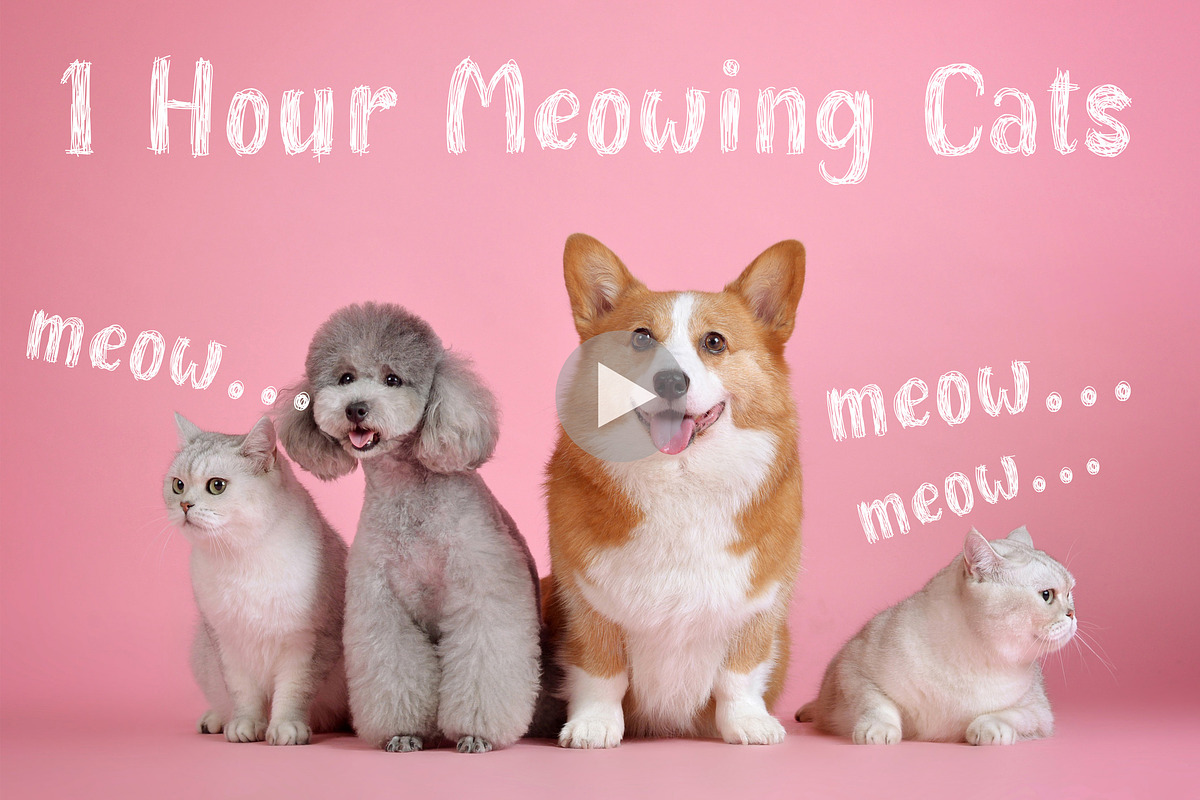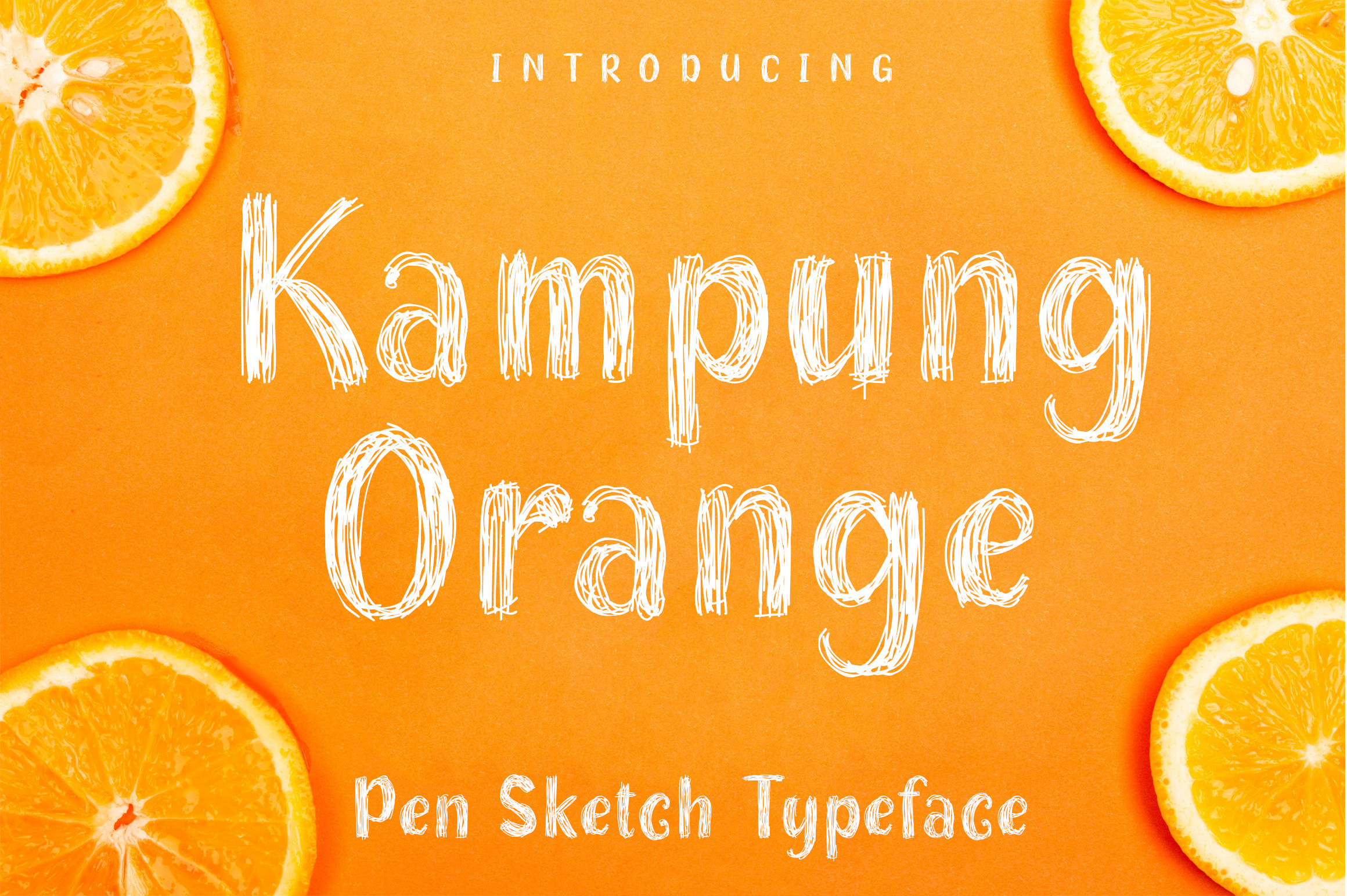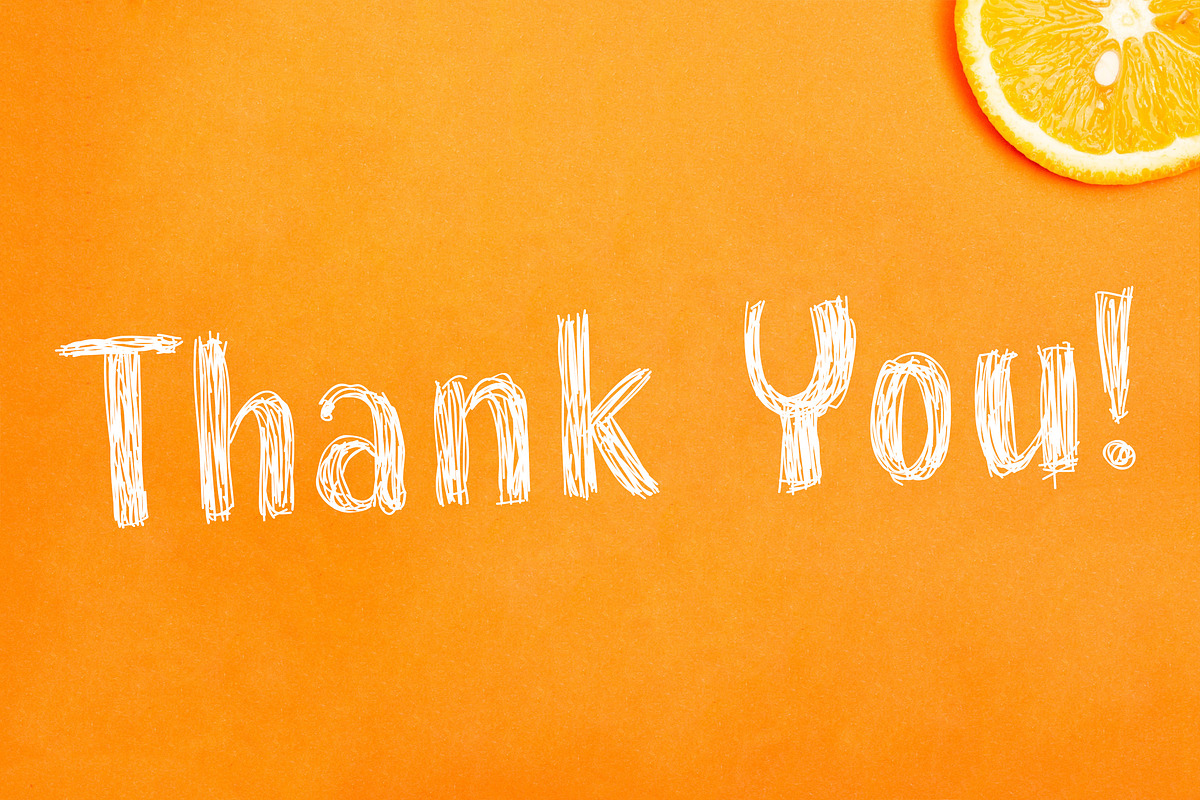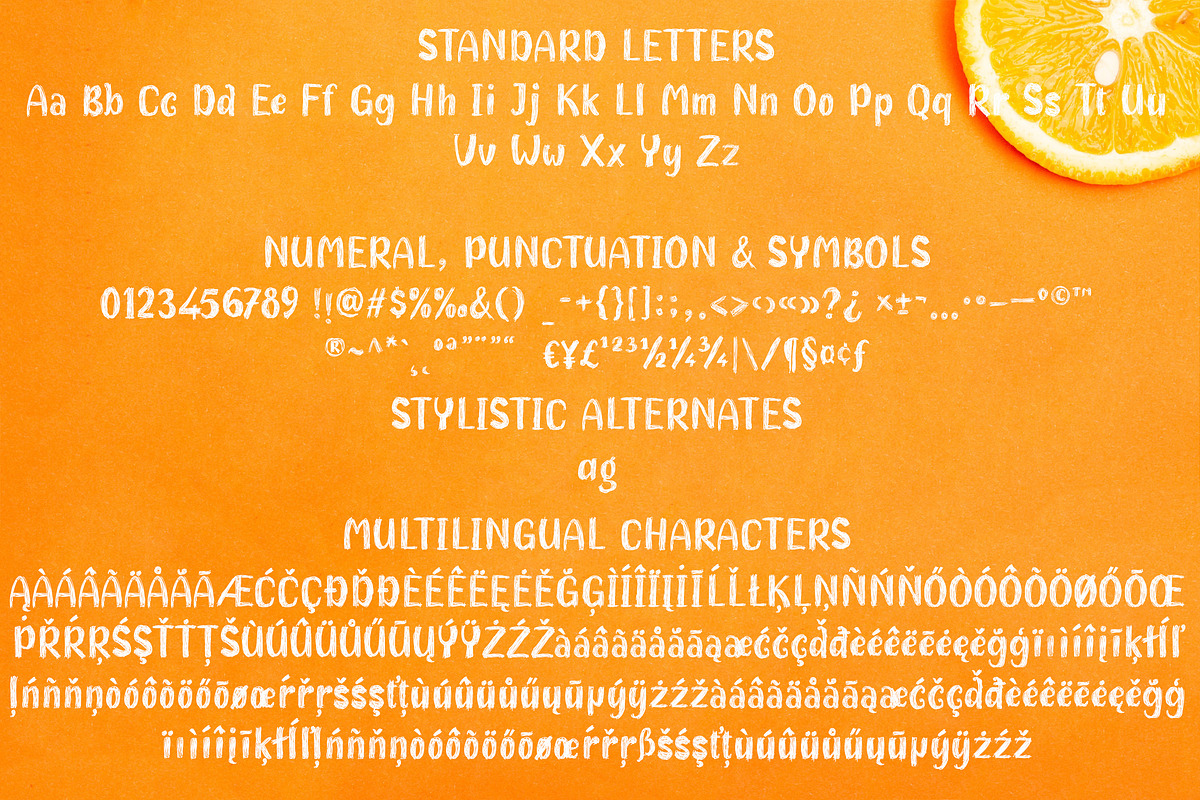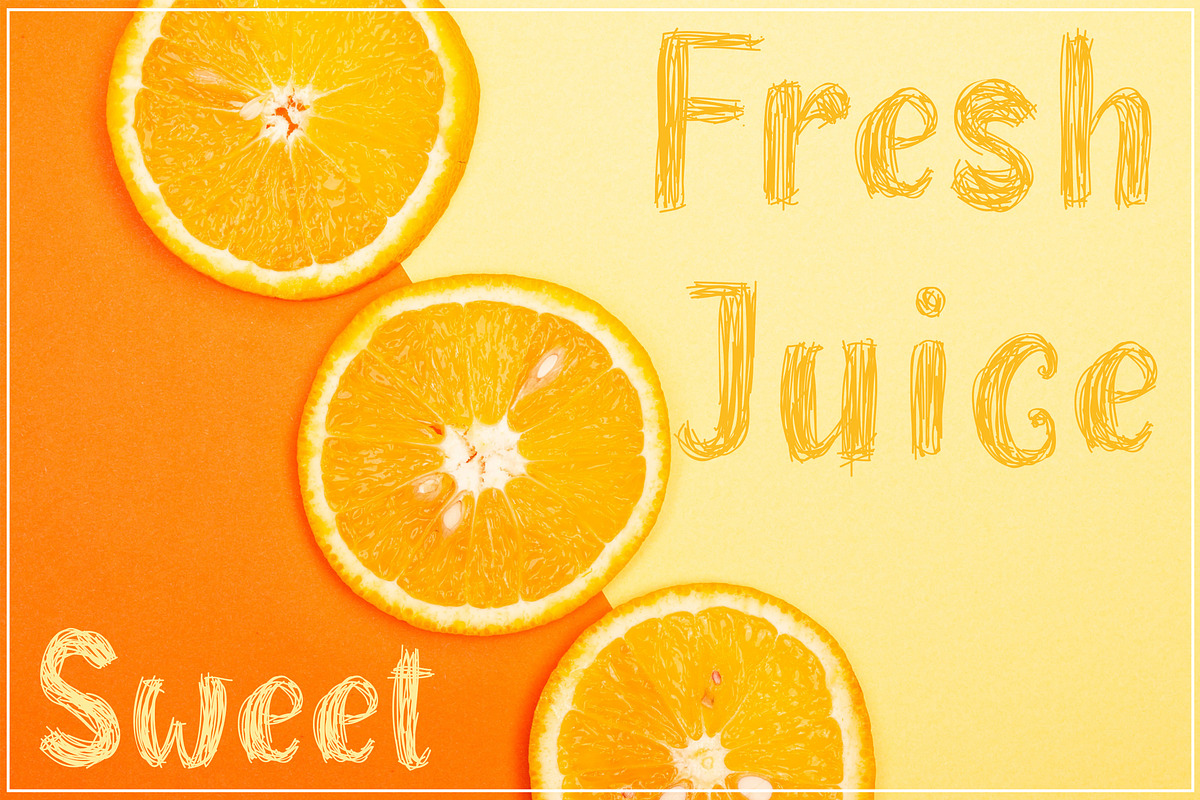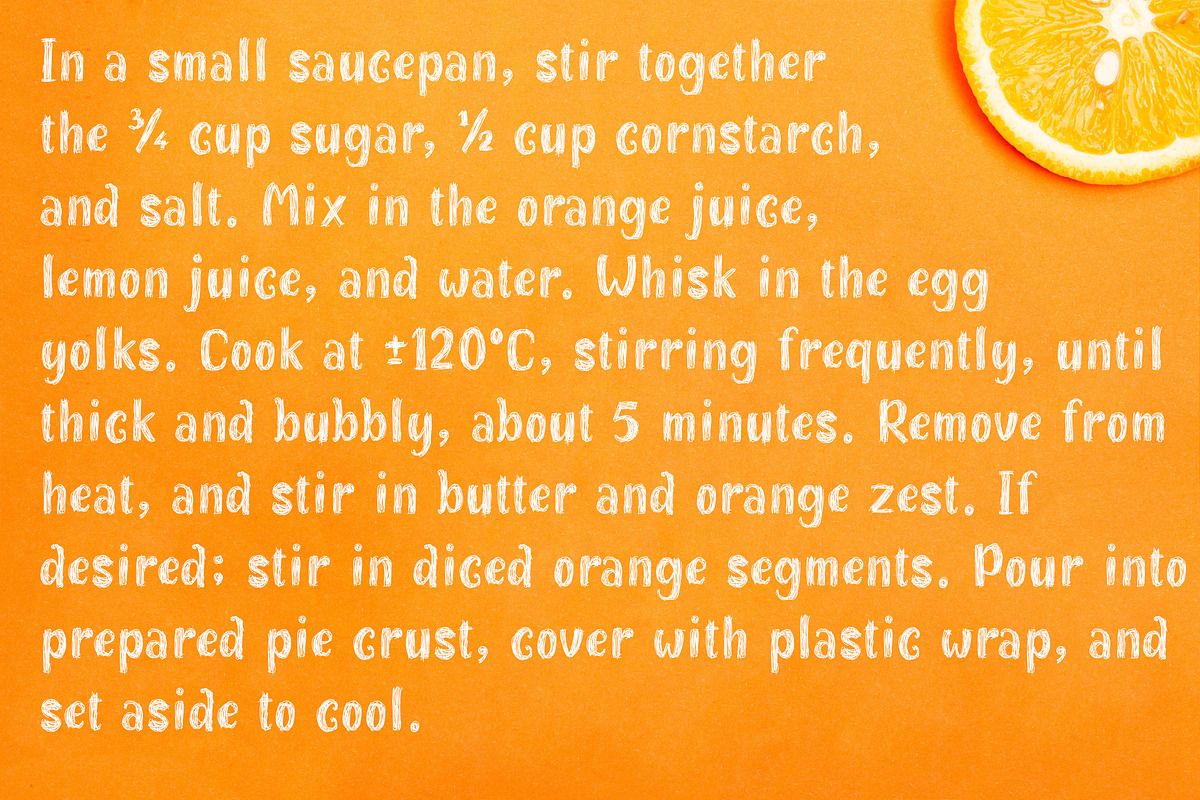
Kampung Orange | Sketch Style Font
Introducing a new fancy pen sketch style font. This font will cute to cute theme in your books, magazine, flyer, YouTube thumbnail, etc.
This font contain 310 glyph, supported to Latin, Turkish and Baltic characters.